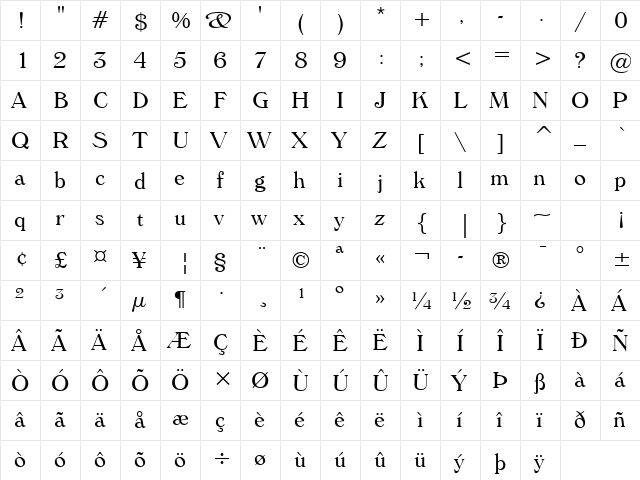
Windsor Light
Design Context for Windsor Typeface
Windsor offers clean, dependable letterforms without strong stylistic allegiance, making it a practical choice for designers who need flexibility. The delicate stroke weight brings airiness and refinement to layouts.
Pro Tip: Pair Windsor with a font of contrasting weight or personality to build a more expressive typographic hierarchy.